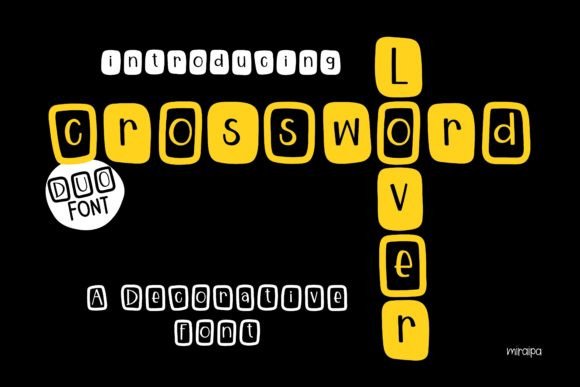
Introducing Crossword Lover Font: The Ultimate Decorative Font for Playful Celebrations
Are you looking for a font that can add a friendly and playful touch to your projects? Look no further than the Crossword Lover Font! Designed to bring a sense of fun and excitement, this decorative font is perfect for celebrations such as Halloween, Christmas, Birthdays, or anything kids-related. In this article, we’ll explore the features and benefits of Crossword Lover Font, and how you can use it to bring your DIY projects to life.
Key Features of Crossword Lover Font
- Playful and Friendly Style: Crossword Lover Font is designed to be fun and engaging, making it perfect for projects that require a lighthearted touch.
- Decorative and Versatile: This font can be used for a wide range of projects, from party decorations and invitations to posters, blogs, clothing, and social media posts.
- Kids-Friendly: The font’s playful style makes it an excellent choice for projects related to kids, such as birthday parties, children’s events, or educational materials.
10 Creative Ways to Use Crossword Lover Font
- Party Decorations: Use Crossword Lover Font to create festive party decorations, such as banners, garlands, or centerpieces.
- Party Invitations: Design eye-catching party invitations that set the tone for your celebration.
- Posters and Flyers: Create engaging posters and flyers for events, promotions, or announcements.
- Blogs and Websites: Add a playful touch to your blog or website with Crossword Lover Font.
- Clothing and Apparel: Use the font to create fun and playful designs for t-shirts, hoodies, or other clothing items.
- Greeting Cards: Design personalized greeting cards for special occasions, such as birthdays, holidays, or thank-you notes.
- Social Media Posts: Add a friendly touch to your social media posts, such as Facebook, Instagram, or Twitter.
- DIY Projects: Use Crossword Lover Font to create custom labels, stickers, or signs for your DIY projects.
- Educational Materials: Create engaging educational materials, such as worksheets, activity sheets, or educational posters.
- Event Branding: Use the font to create a cohesive brand identity for your events, including logos, signage, or promotional materials.
Benefits of Using Crossword Lover Font
- Easy to Read: Despite its playful style, Crossword Lover Font is easy to read, making it perfect for body text or headings.
- Highly Versatile: The font can be used for a wide range of projects, from digital to print materials.
- Unique and Eye-Catching: Crossword Lover Font is sure to grab attention and add a touch of personality to your projects.
- Customizable: Feel free to experiment with different colors, sizes, and styles to adapt the font to your project’s needs.
Crossword Lover Font is a versatile and playful decorative font that’s perfect for adding a friendly touch to your projects. With its easy-to-read style, high versatility, and unique look, this font is sure to bring your DIY projects to life. Whether you’re working on party decorations, social media posts, or educational materials, Crossword Lover Font is an excellent choice. Download it now and start creating!